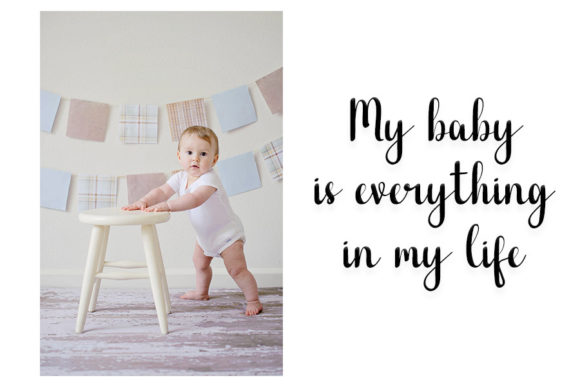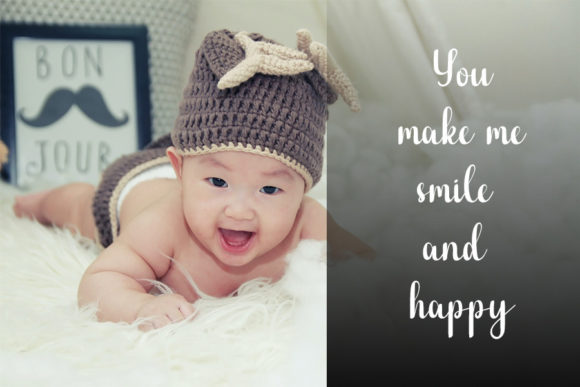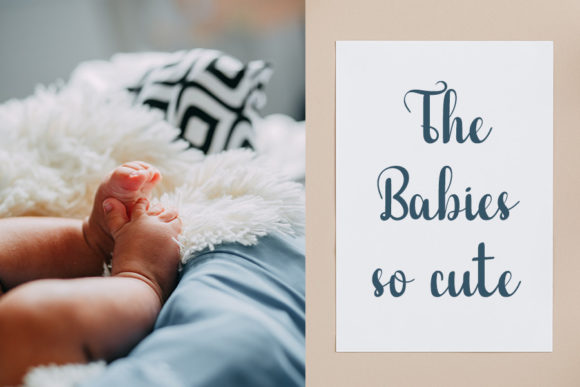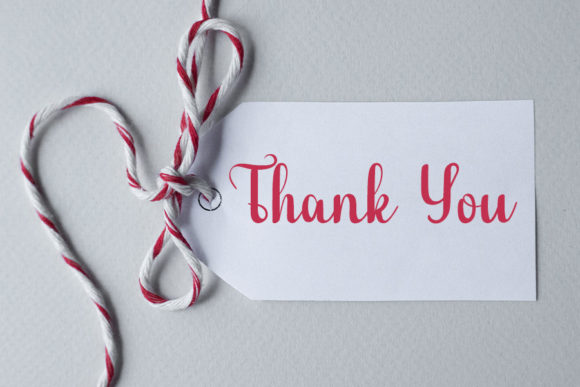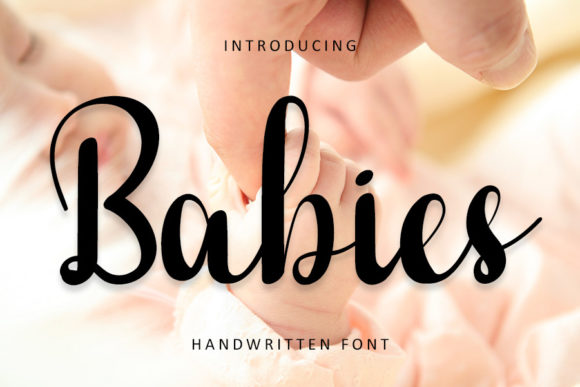
The Quest for the Perfect Font: Discovering Babies Font
I’ll never forget the design project that led me to Babies Font. I was working on a branding project for a new boutique, and I was struggling to find the perfect font to capture the essence of the brand. The client wanted something stylish, yet approachable; elegant, yet playful. I spent hours scouring font websites, but nothing seemed quite right. That was when I stumbled upon Babies Font, and it was love at first sight! 💕
An Honest Review of Babies Font
So, what makes Babies Font so special? Let’s dive into the good stuff! 😊
• ✨ Stylish and contemporary: Babies Font has a fresh, modern feel that’s perfect for designs that need a bit of sophistication.
• ✅ Impeccable form: The font’s attention to detail and balanced design make it a joy to work with.
• 💫 Timeless classic calligraphy: Babies Font takes inspiration from traditional calligraphy, giving it a sense of elegance and refinement.
Of course, no font is perfect, and Babies Font has a few minor quirks:
• 🤔 Limited multilingual support: While Babies Font covers the basics, it may not be the best choice for projects that require a wide range of languages.
• ⚠️ Some glyphs may require manual adjustment: Depending on your design, you may need to tweak certain glyphs to get the perfect fit.
The Story Behind Babies Font
While the true story behind Babies Font may be a mystery, it’s easy to imagine a designer pouring their heart and soul into creating a font that’s both beautiful and functional. Perhaps the designer was inspired by classic calligraphy and wanted to create a font that would bring a touch of elegance to modern designs. Whatever the inspiration, Babies Font is a true gem!
Is Babies Font suitable for body text? While Babies Font is beautiful, it’s best suited for headings and titling. For body text, you may want to choose a more traditional font.